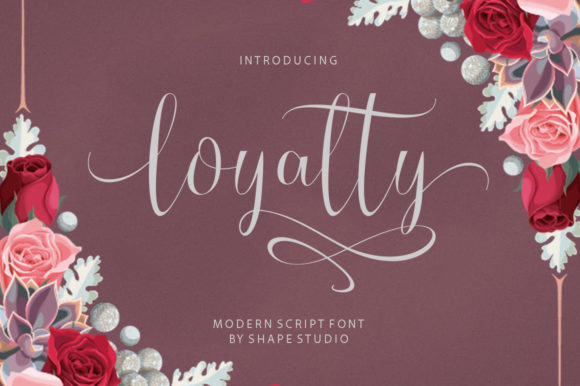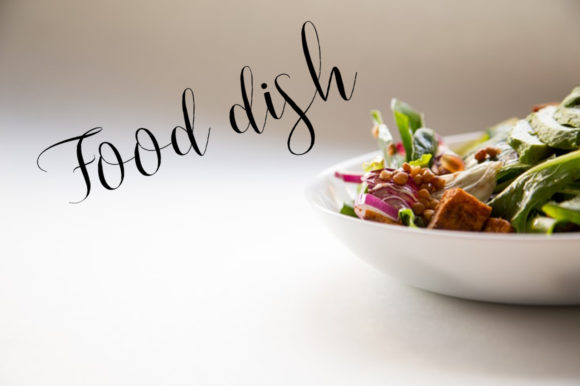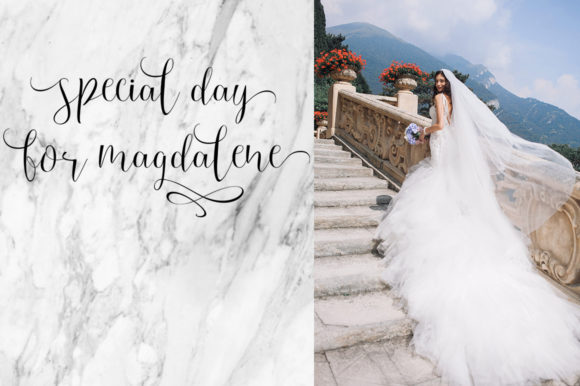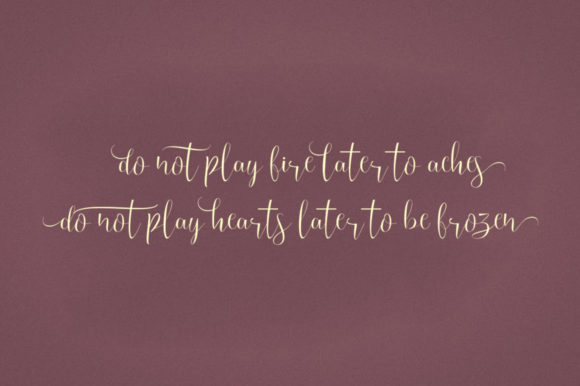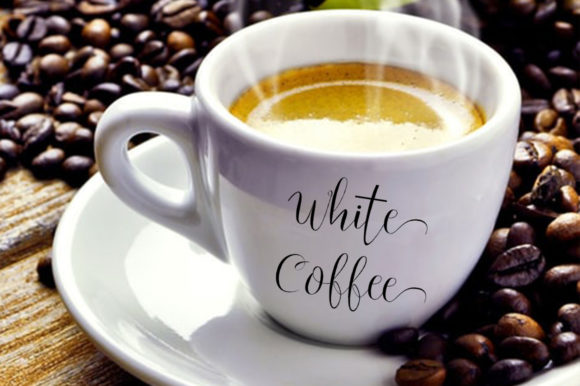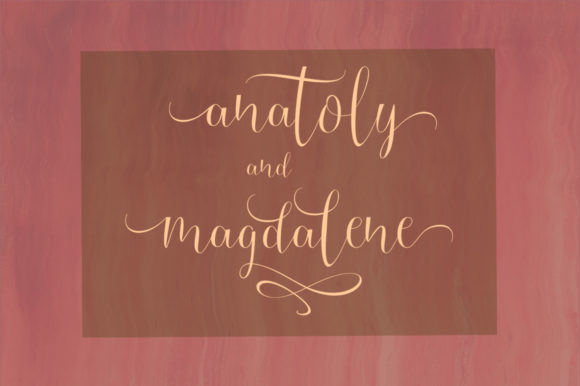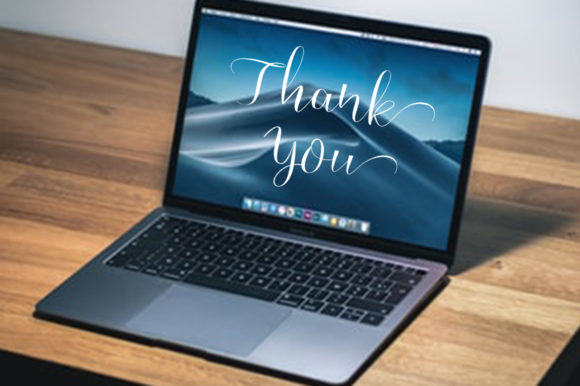
HomeScript FontsLoyalty Font Script Fonts Loyalty Font FacebookXPinterestWhatsApp Loyalty Font Poster 2 Loyalty Font Poster 3 Loyalty Font Poster 4 Loyalty Font Poster 5 Loyalty Font Poster 6 Loyalty Font Poster 7 About Loyalty Font Loyalty is a new modern script font with an irregular baseline. Fall in love with its trendy and feminine style! DOWNLOAD NOW People also explored Hiaklimah Font Pineaple Font Gerand Font Hello Rissha Font Rain Night Font Lady Angel Font Christmas Gallery Font Wristler Font Hey Christmas Font 406 0 TagsLoyalty Font Previous articleSapda Tama FontNext articleAmetrine Font LEAVE A REPLY Cancel reply Comment: Please enter your comment! Name:* Please enter your name here Email:* You have entered an incorrect email address! Please enter your email address here Website: Save my name, email, and website in this browser for the next time I comment. Personal Use Free Angelia Personal Use Free Read more about this font Eigha Personal Use Free Read more about this font Colombia Personal Use Free Read more about this font Velasco Personal Use Free Read more about this font BLOG Modern Sans-Serif Fonts That Brands Love in 2025 In 2025, modern sans-serif fonts remain a top choice for brands looking to project clarity, professionalism, and... Best Fonts for T-Shirt Design – Top 2025 Picks 5 Fonts That Will Dominate Design Trends in 2026 Exploring Font Trends